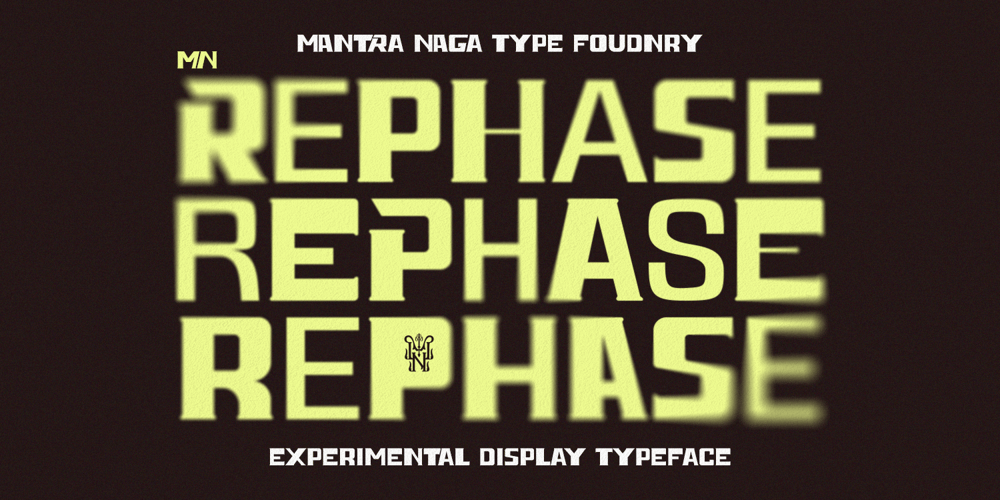
MN Rephase Font Family was designed by Fredo Eka Pratama and published by Mantra Naga Studio. MN Rephase contains 1 styles and family package options. MN Rephase is a bold display font with a vernacular and experimental edge, challenging conventional typography norms. Featuring varying stroke thicknesses across characters, this display font breaks traditional typographic anatomy with its mix of serif and sans serif elements in an anti-design approach. Ideal for bold and experimental projects, MN Rephase brings a raw, non-conformist aesthetic, perfect for designs that push creative boundaries with a distinctly unconventional visual identity.bold display font, experimental font, anti-design font, unconventional typography, modern serif, mixed serif sans serif, variable font, unique typeface, expressive font, vernacular style font, creative typography, artistic font, edgy font, modern display typeface, distinctive font, alternative font, raw aesthetic font, non-traditional font, avant-garde typography, contemporary font